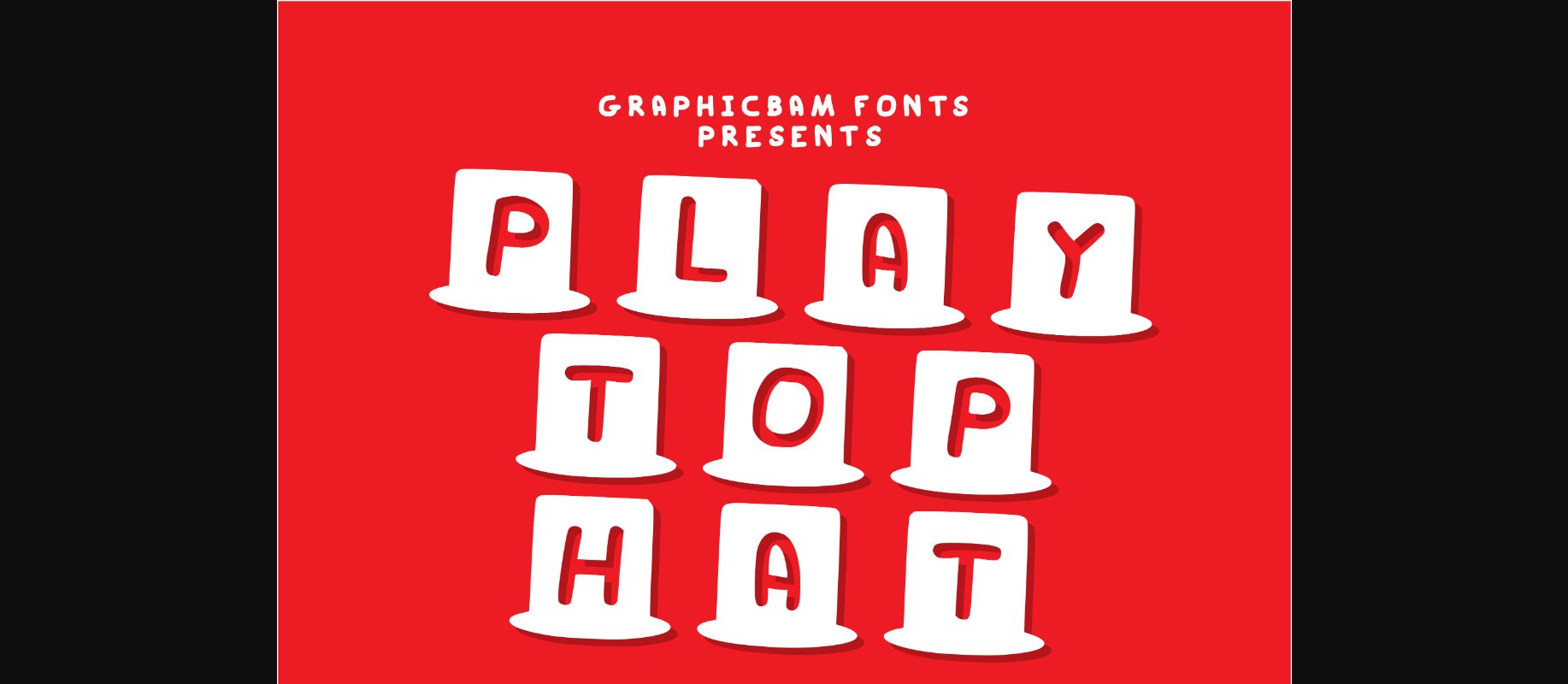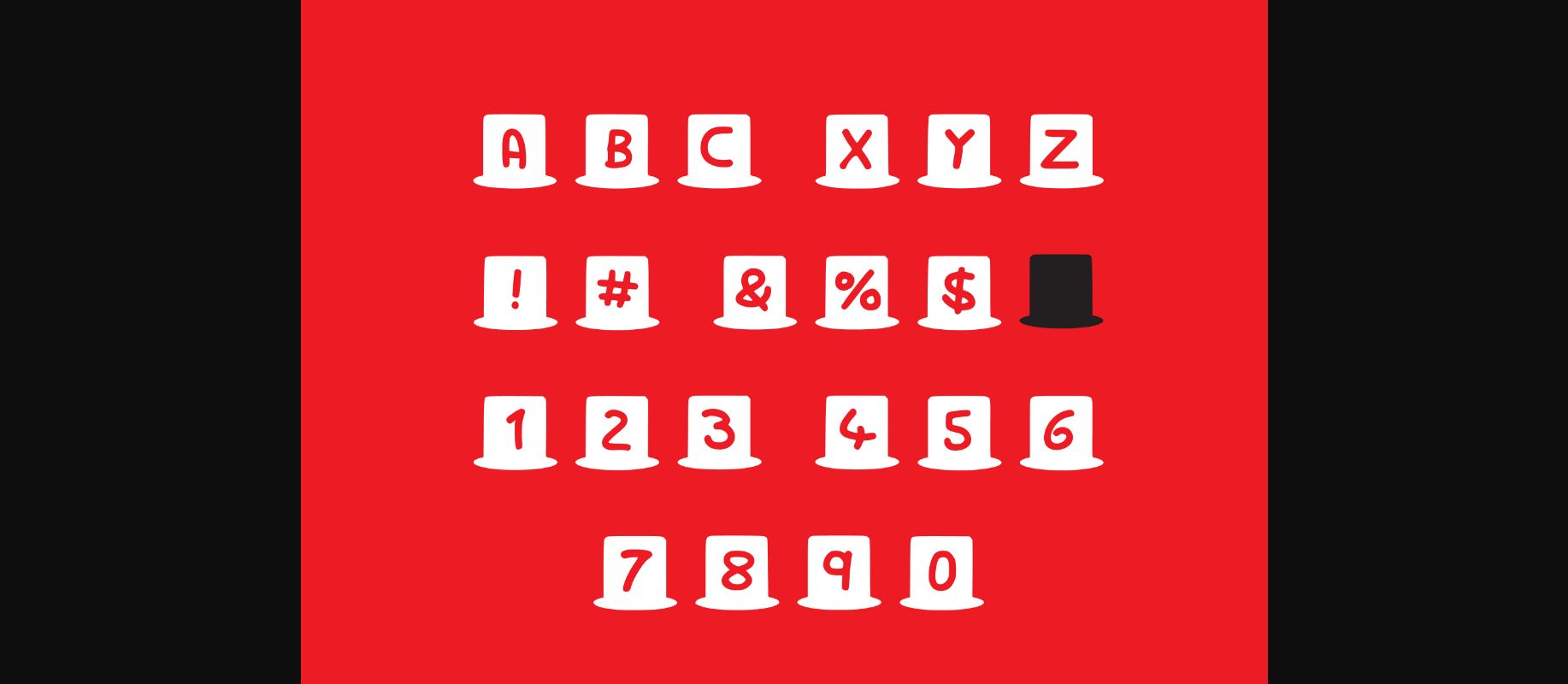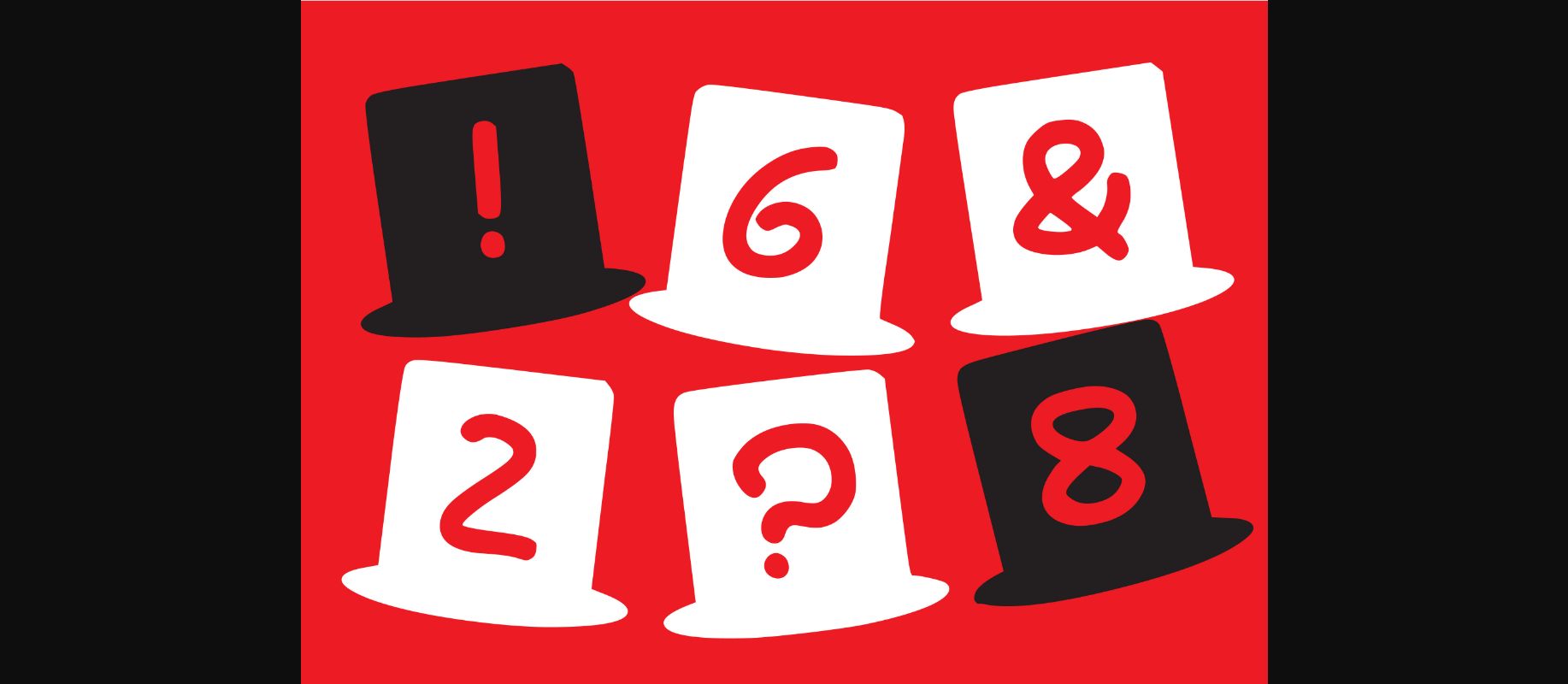
Play Top Hat is a lovely decorative font, featuring a set of hats with a playful, child-like vibe. It embodies trendiness and authenticity and is the perfect choice for any children activity or school project.